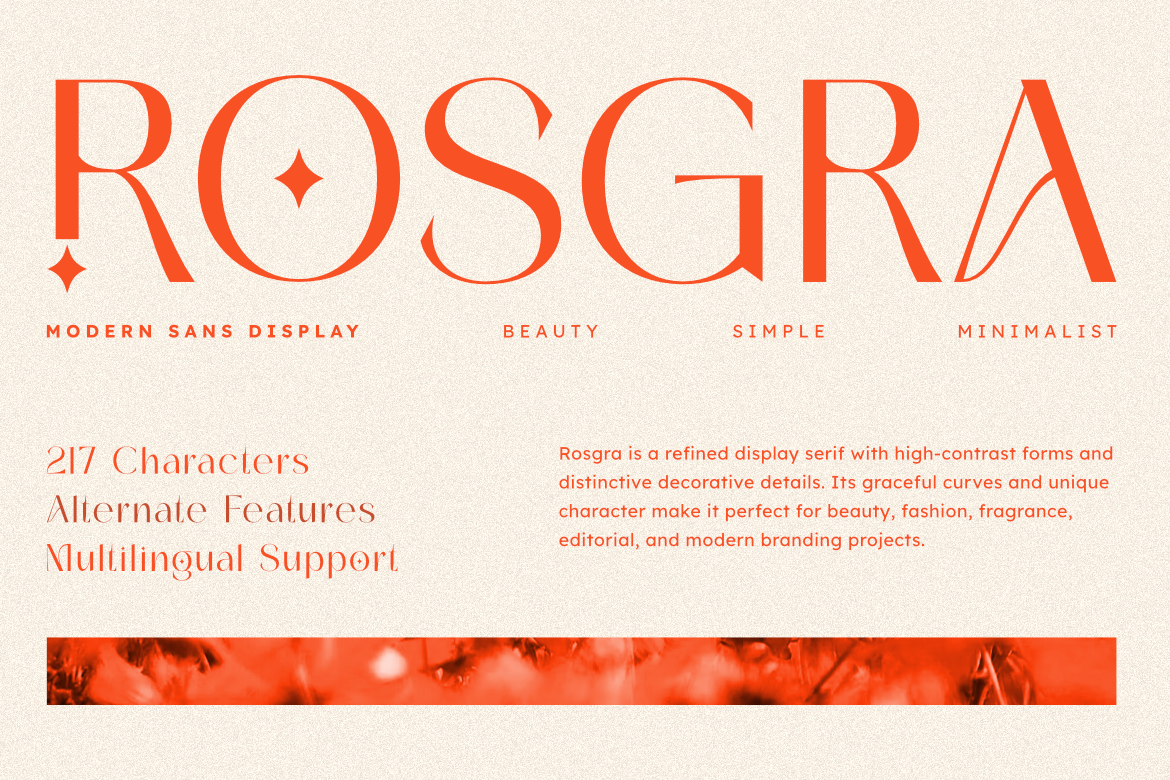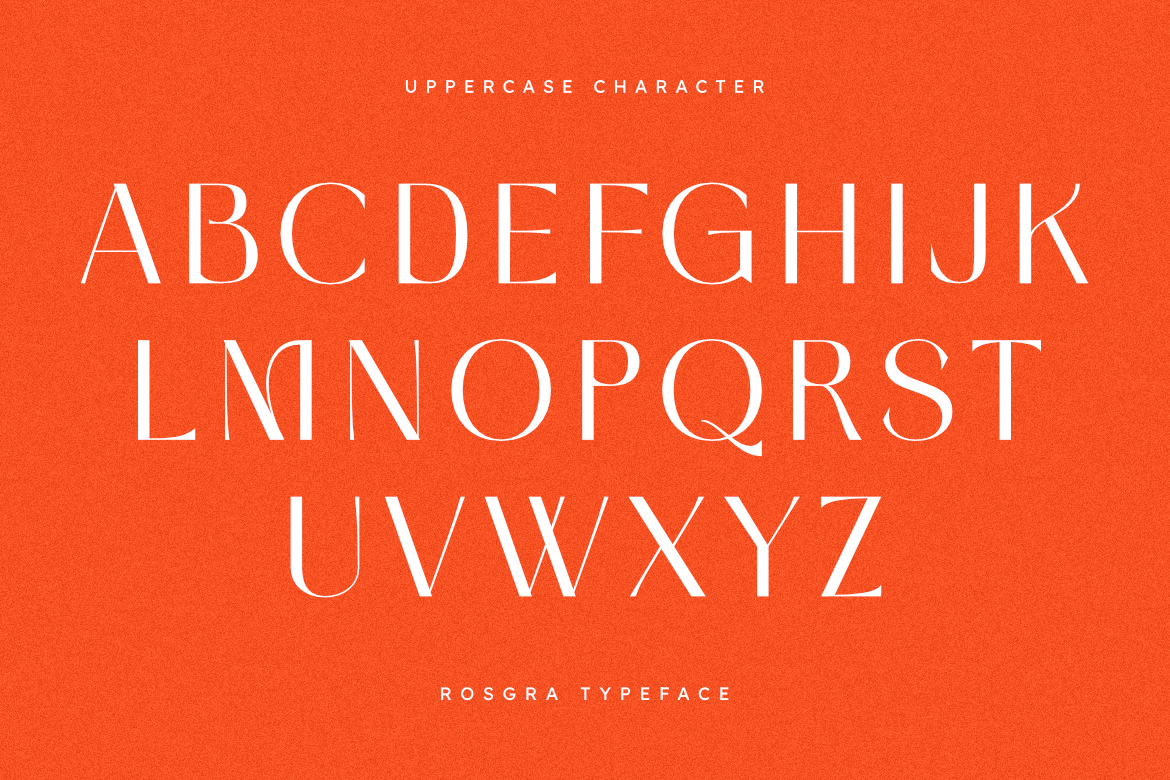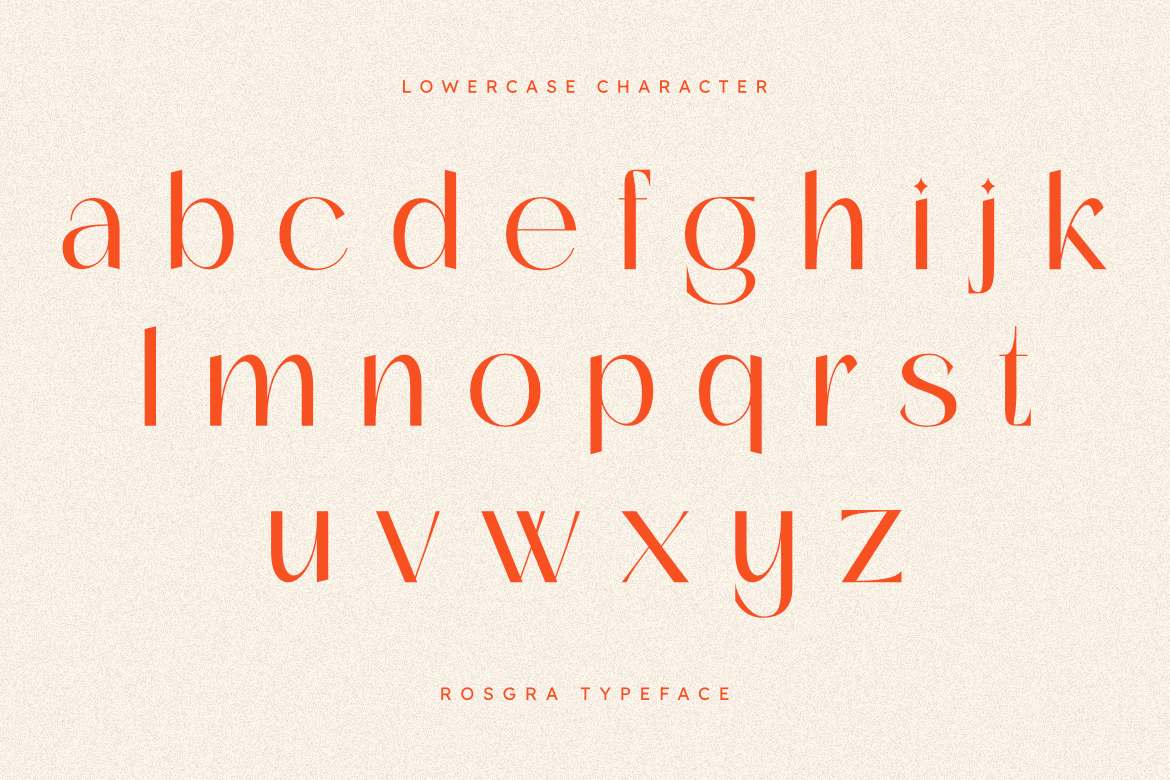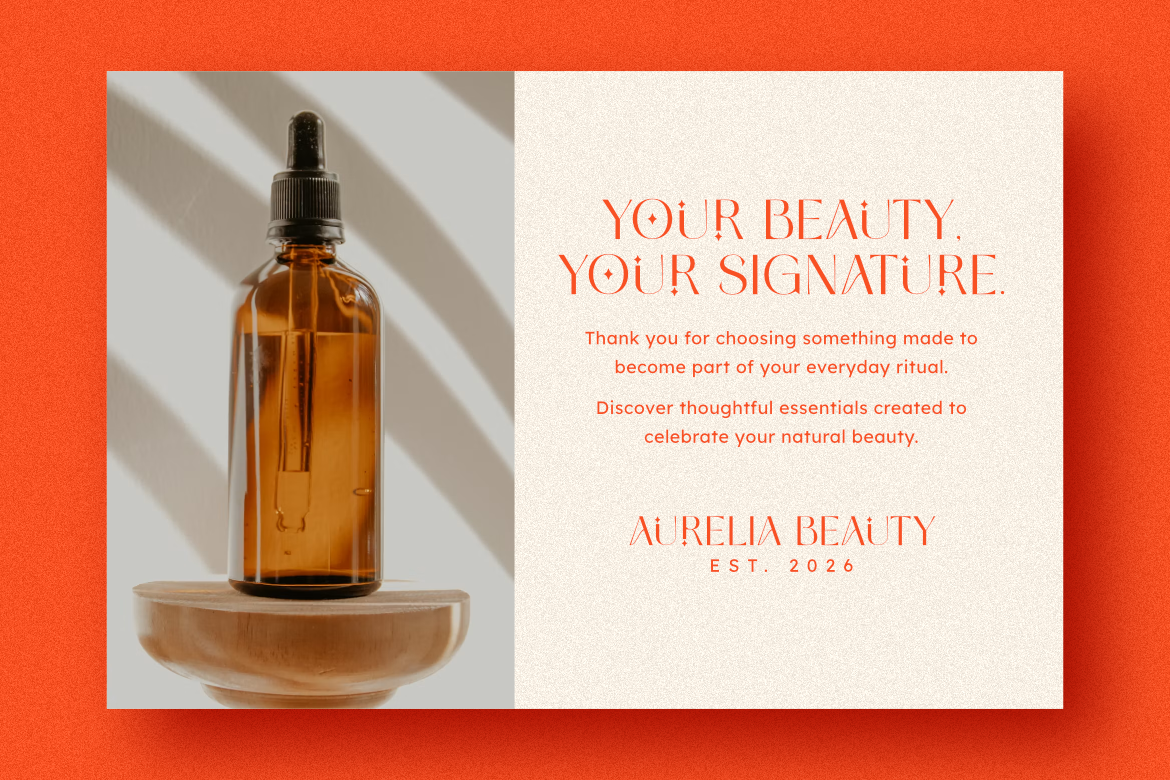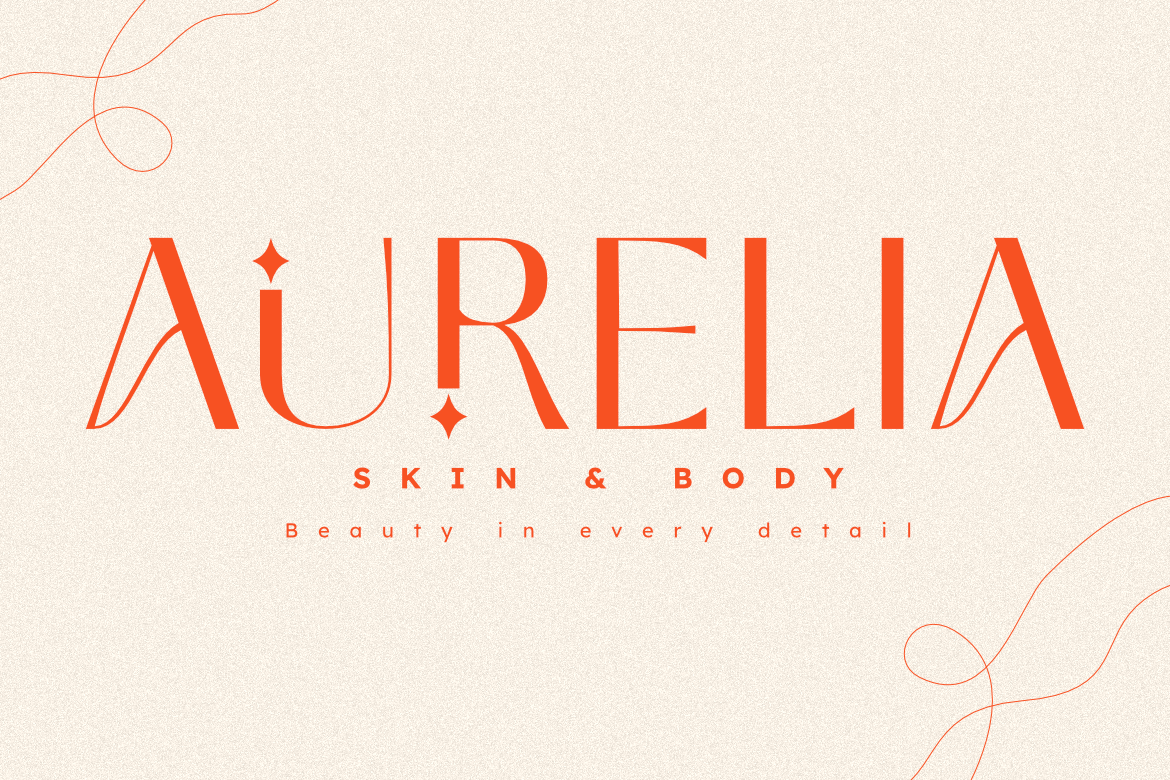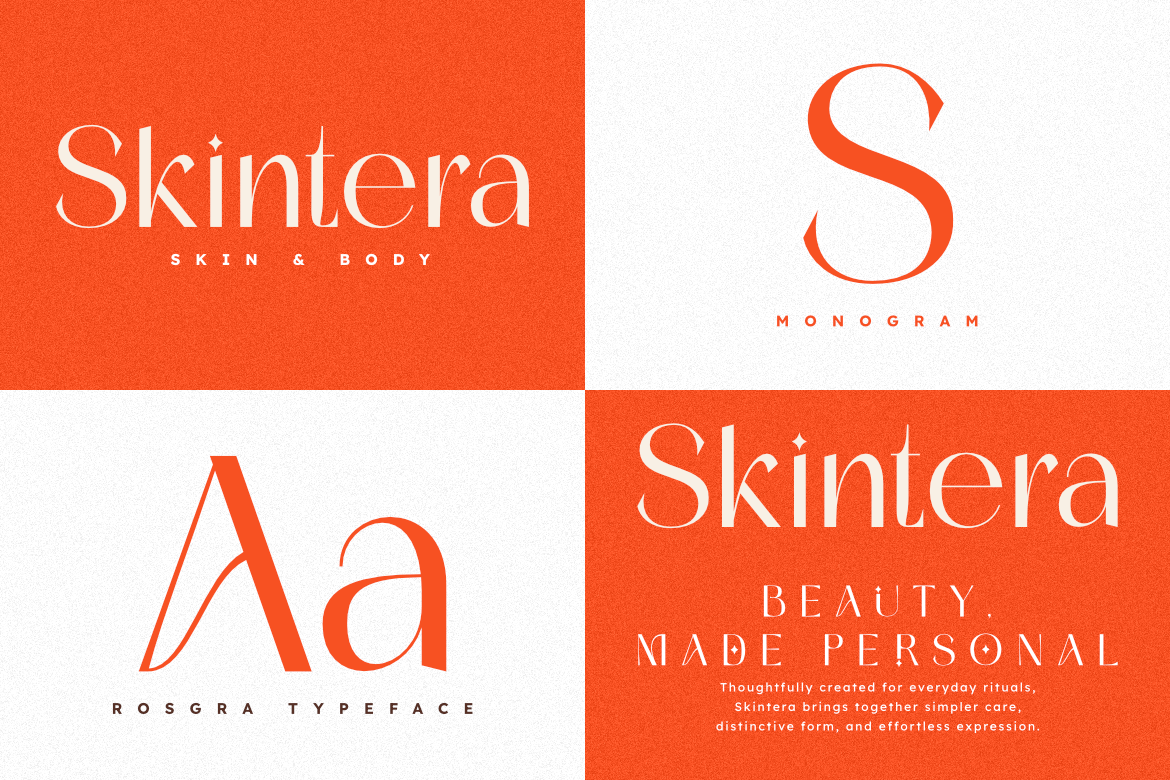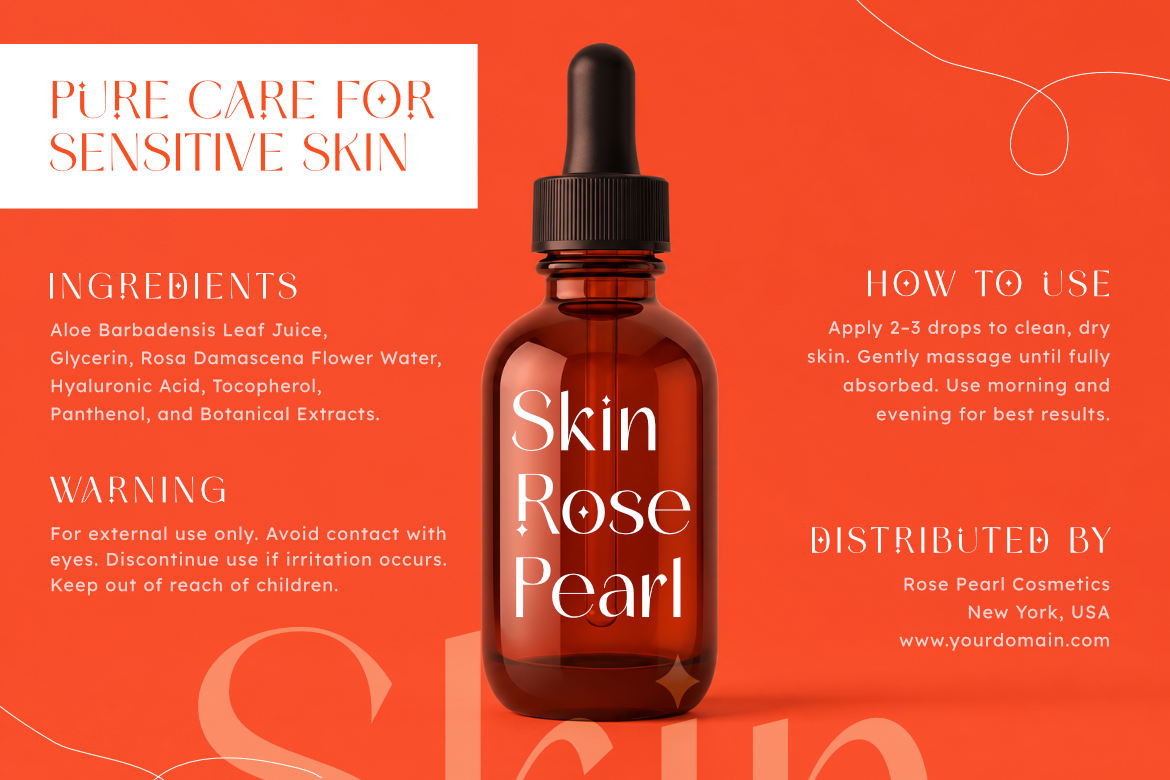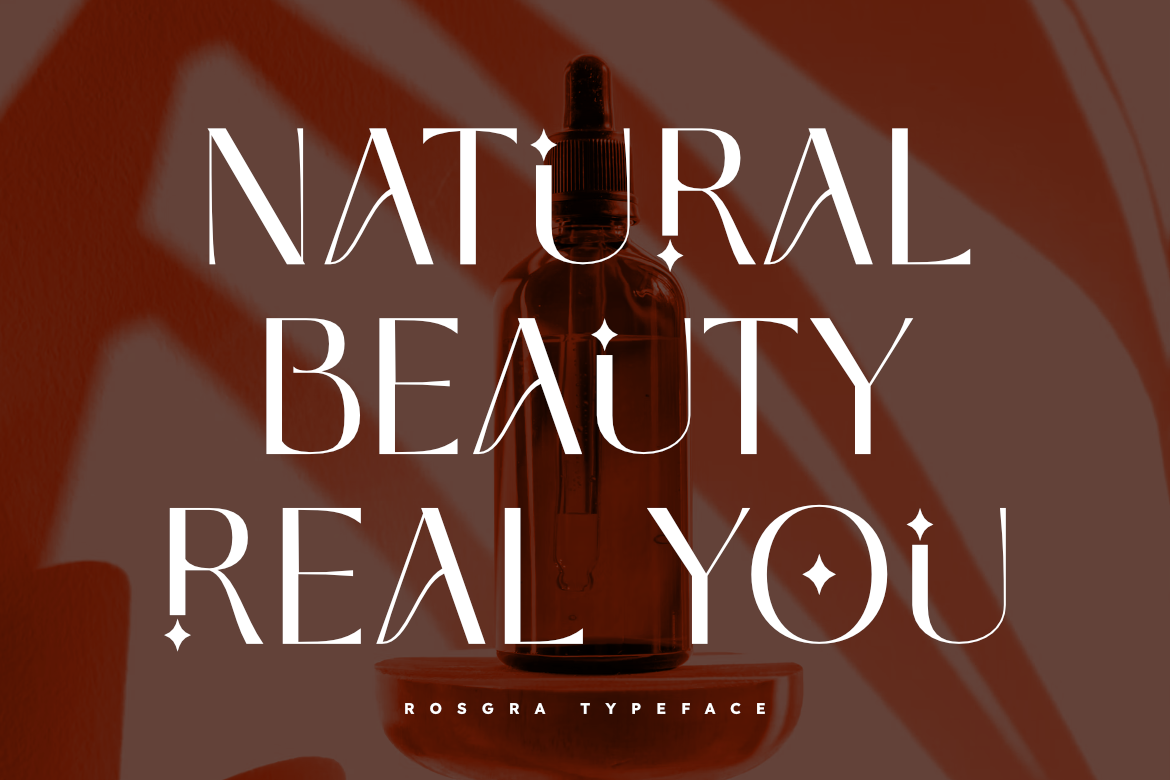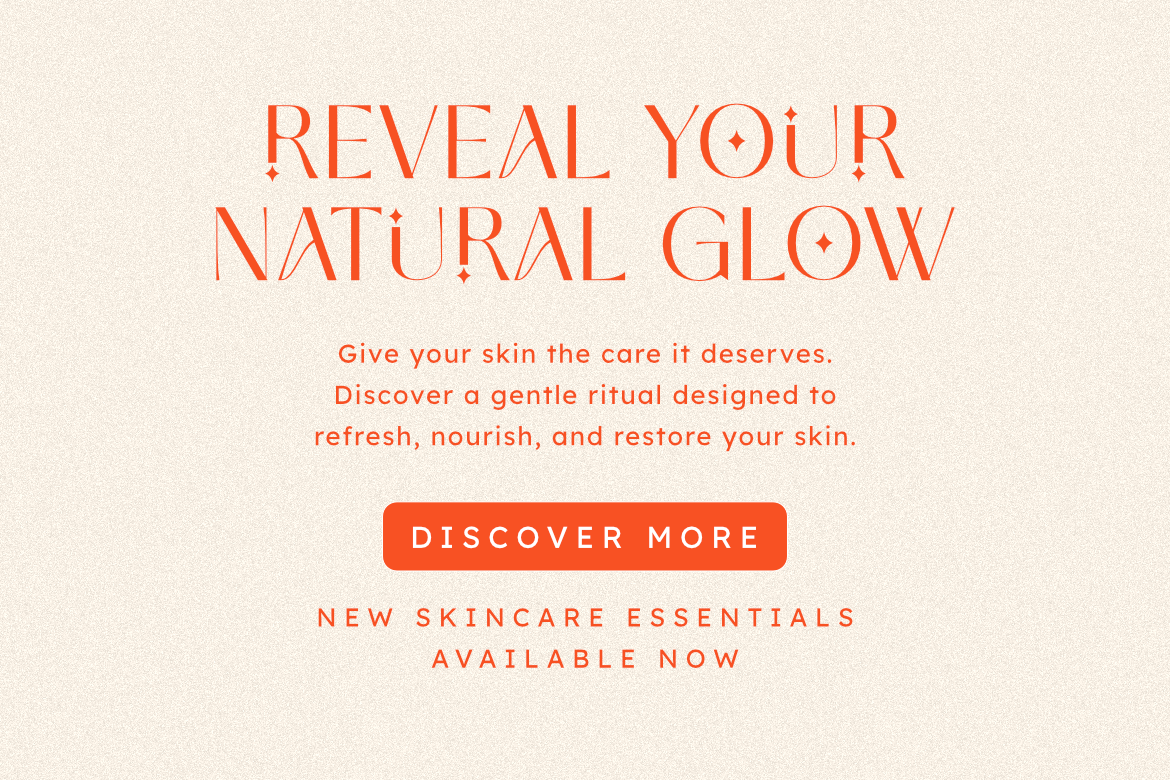
Rosgra - Modern Sans Display Font
Rosgra is a sophisticated modern sans display font designed to bring timeless elegance and high-end professional style to your creative projects.
This typeface features beautifully balanced high-contrast letterforms with clean lines, refined minimalist architecture, and distinctive decorative details, making it exceptionally versatile for luxury visual identities. Its sleek structure and high-impact design ensure that each character flows with grace, delivering a polished look that perfectly captures the essence of contemporary simplicity, fragrance packaging, and editorial sophistication.
Whether you are crafting a brand identity for a premium boutique, designing sleek cosmetics packaging, or creating layouts for lifestyle, fashion, and beauty magazines, Rosgra ensures your work exudes professionalism and style. It is ideal for logos, luxury packaging, websites, and high-end promotional presentations.
Designed for modern creative applications, Rosgra empowers you to communicate a polished, upscale aesthetic that leaves a lasting impression across both print and digital platforms.
Main Features:
• Modern, elegant, and high-contrast sans display style.
• Refined letterforms with unique decorative details.
• Includes alternate features for creative versatility.
• Perfect for high-end branding, luxury logos, and editorial design.
• Multilingual support.